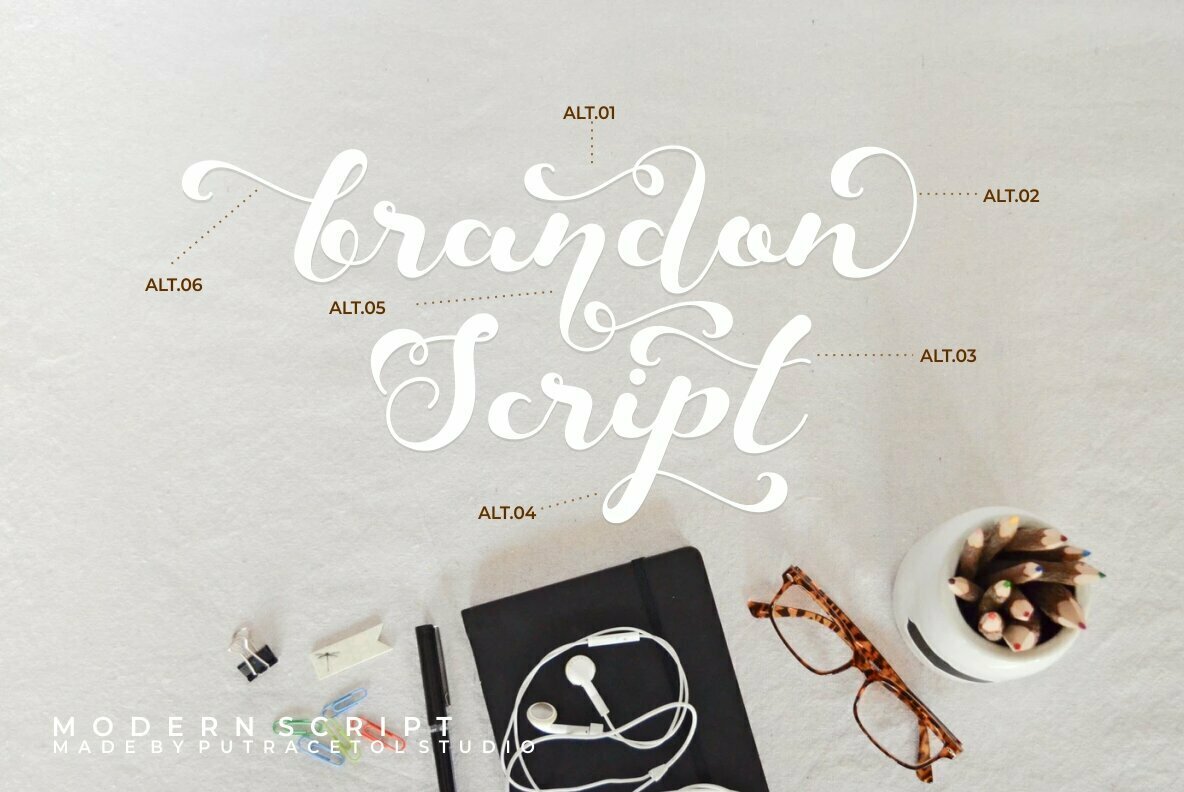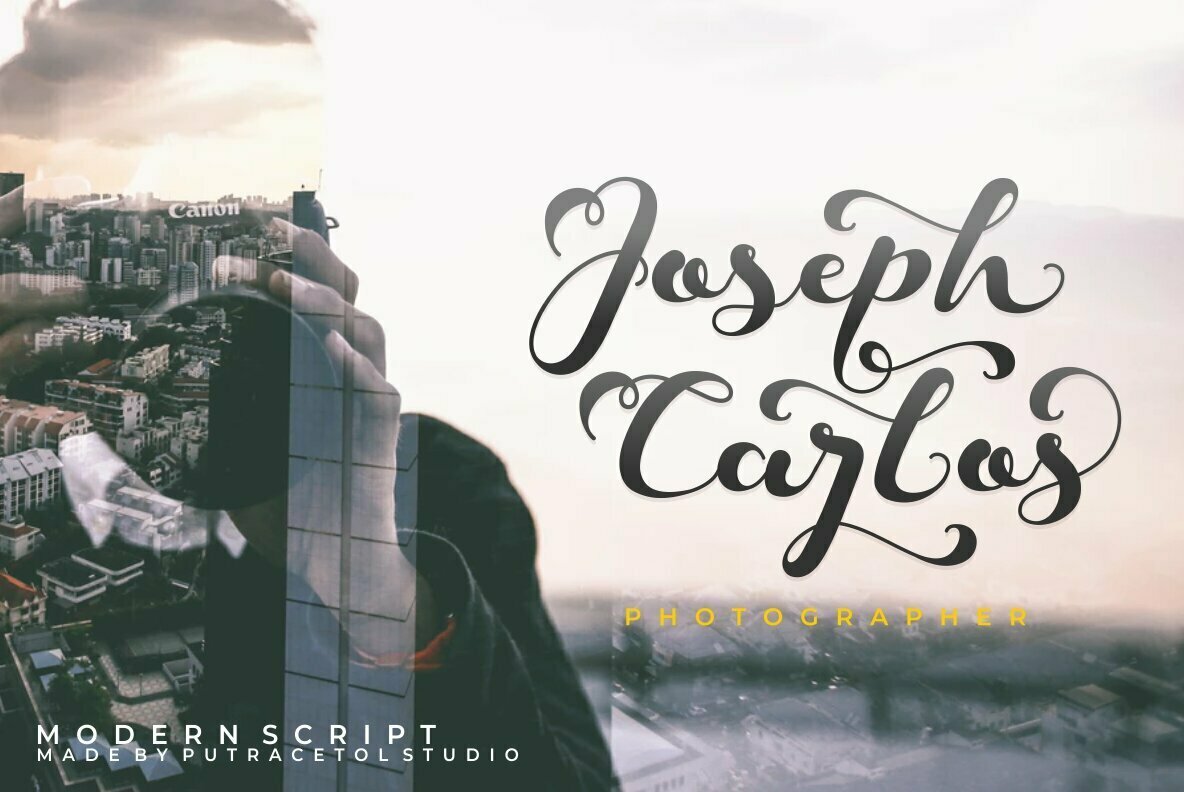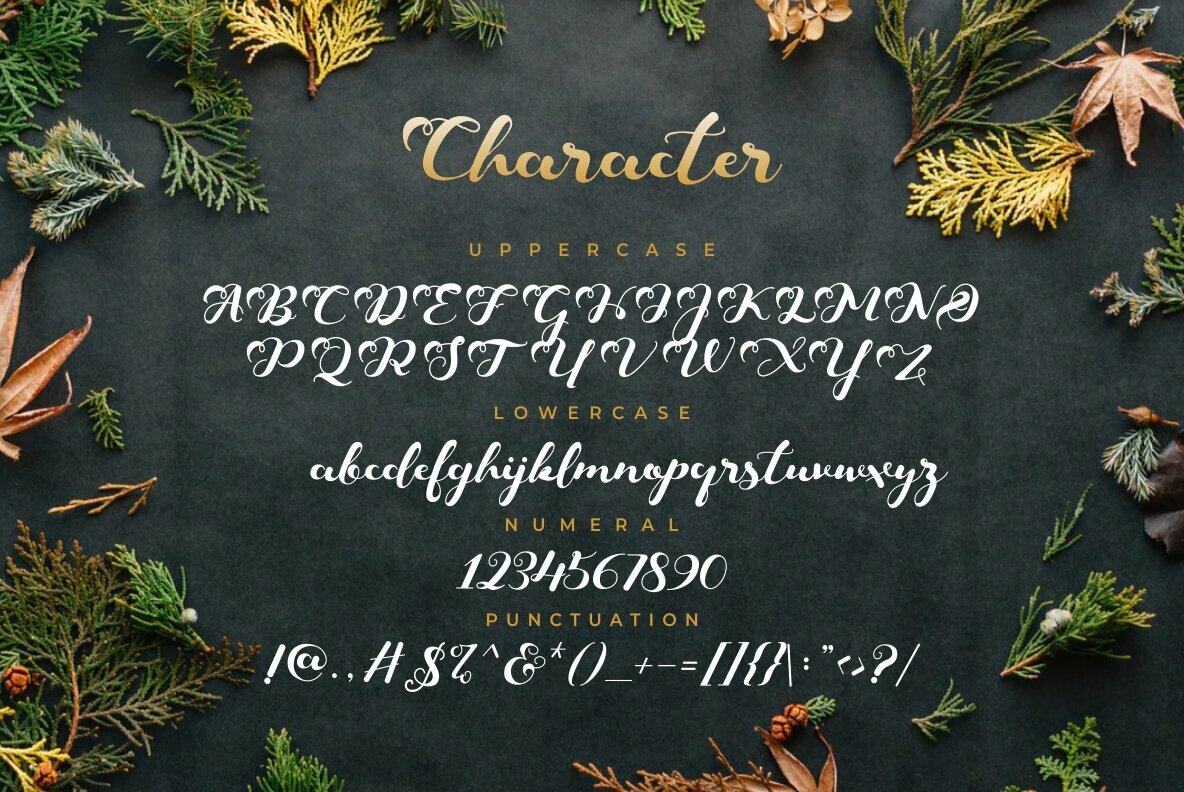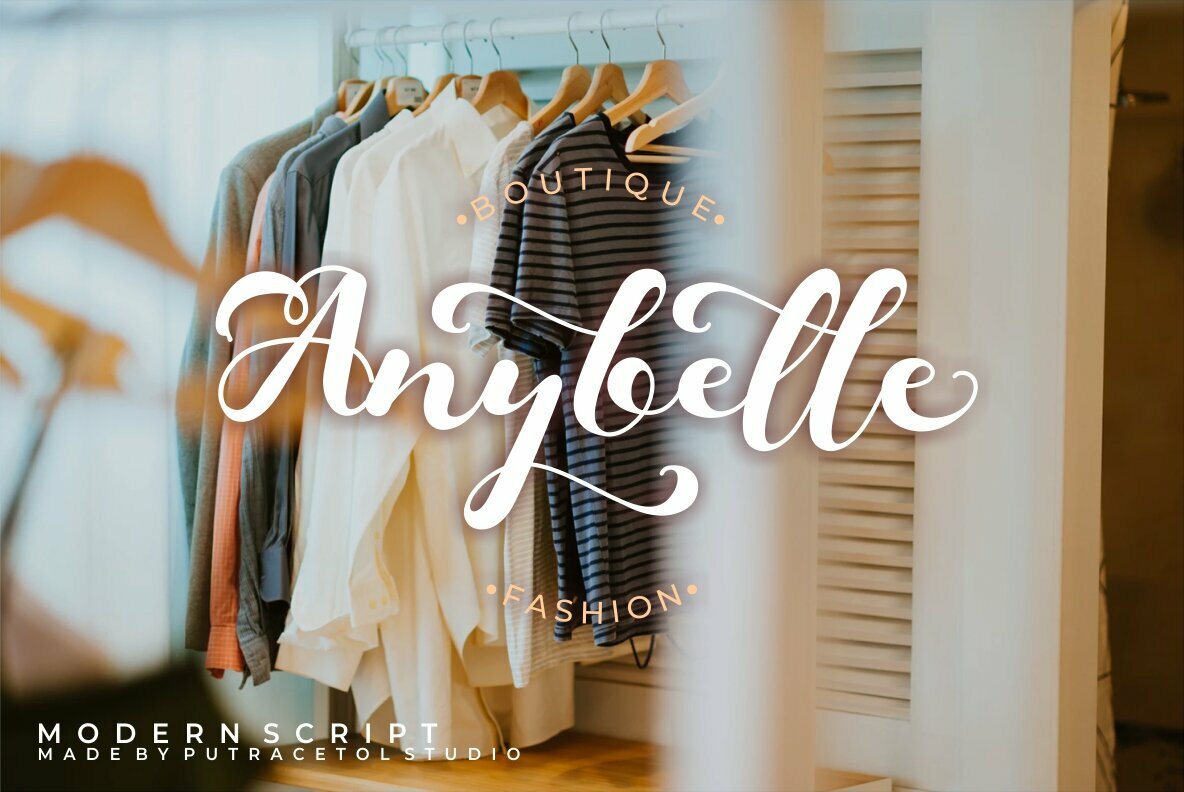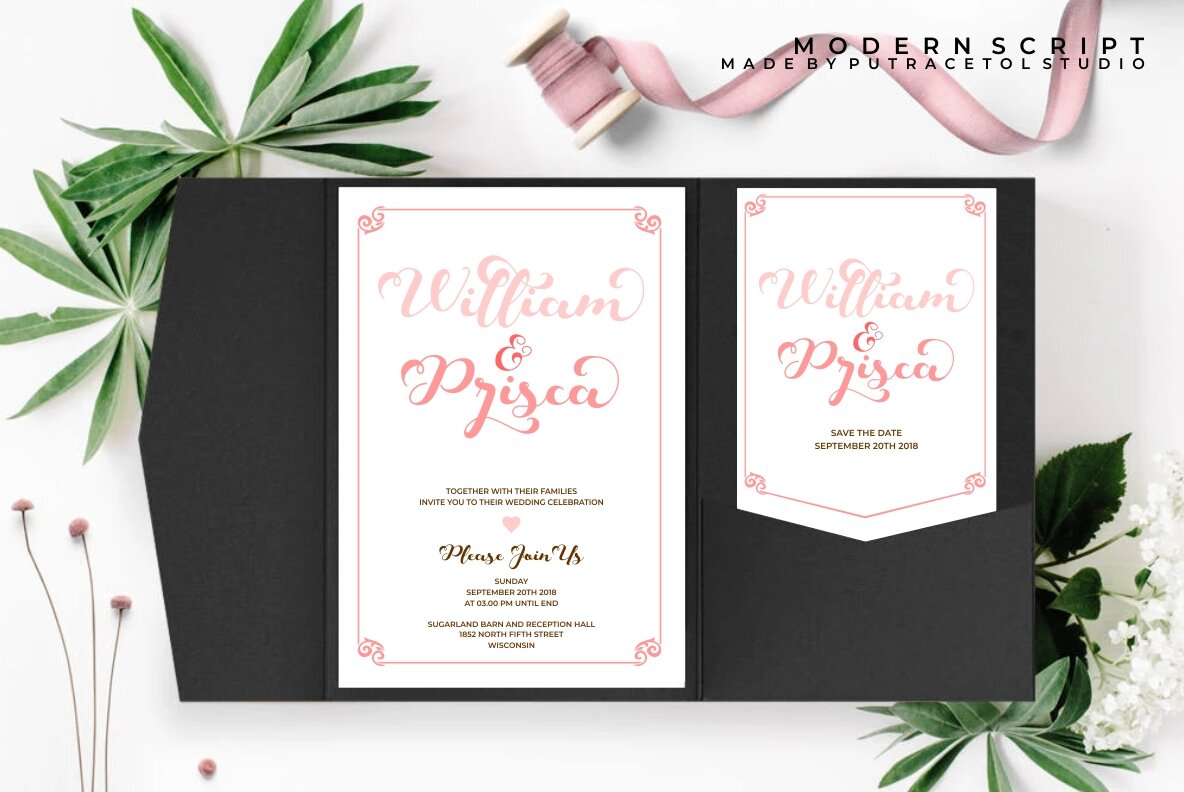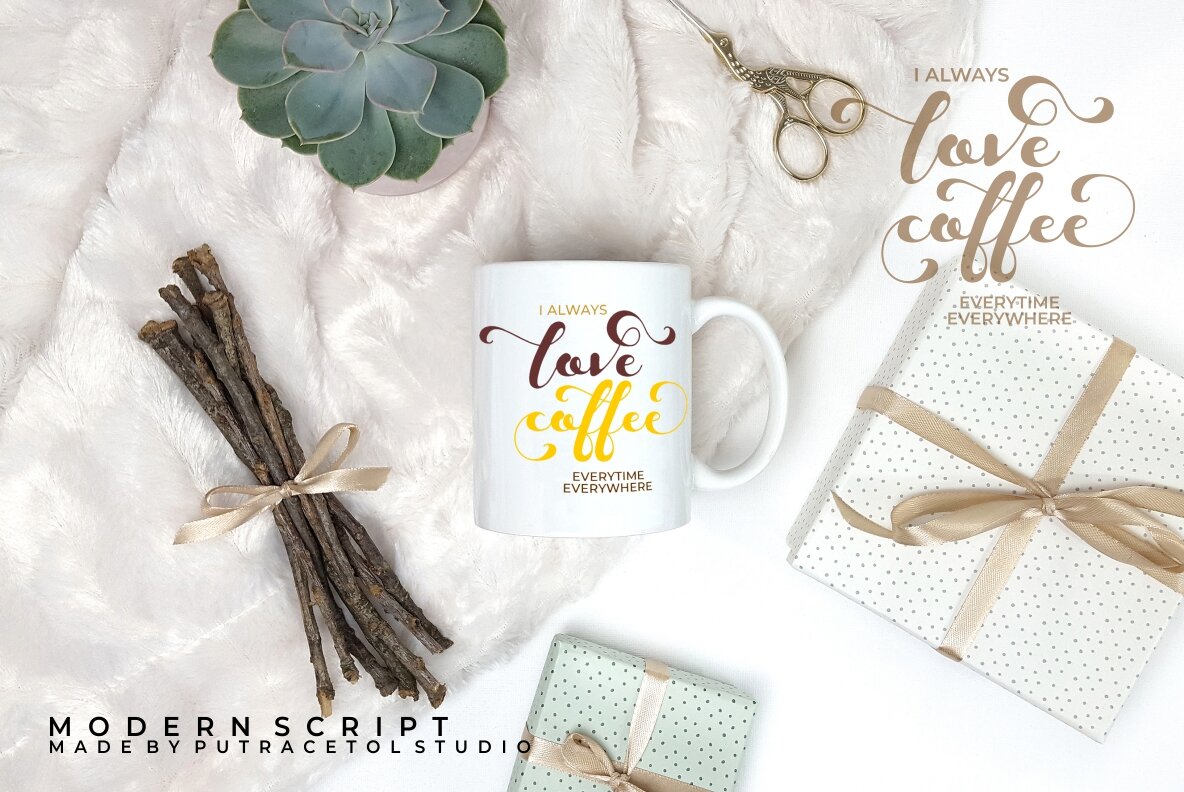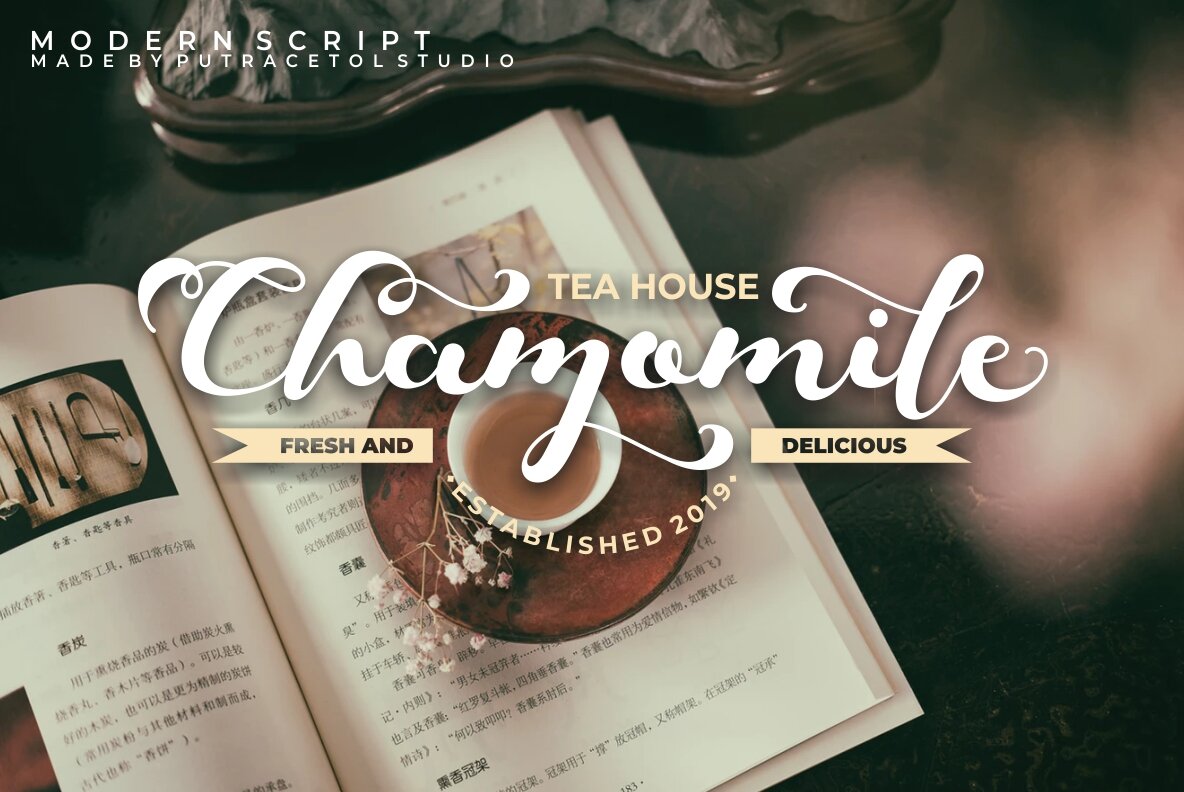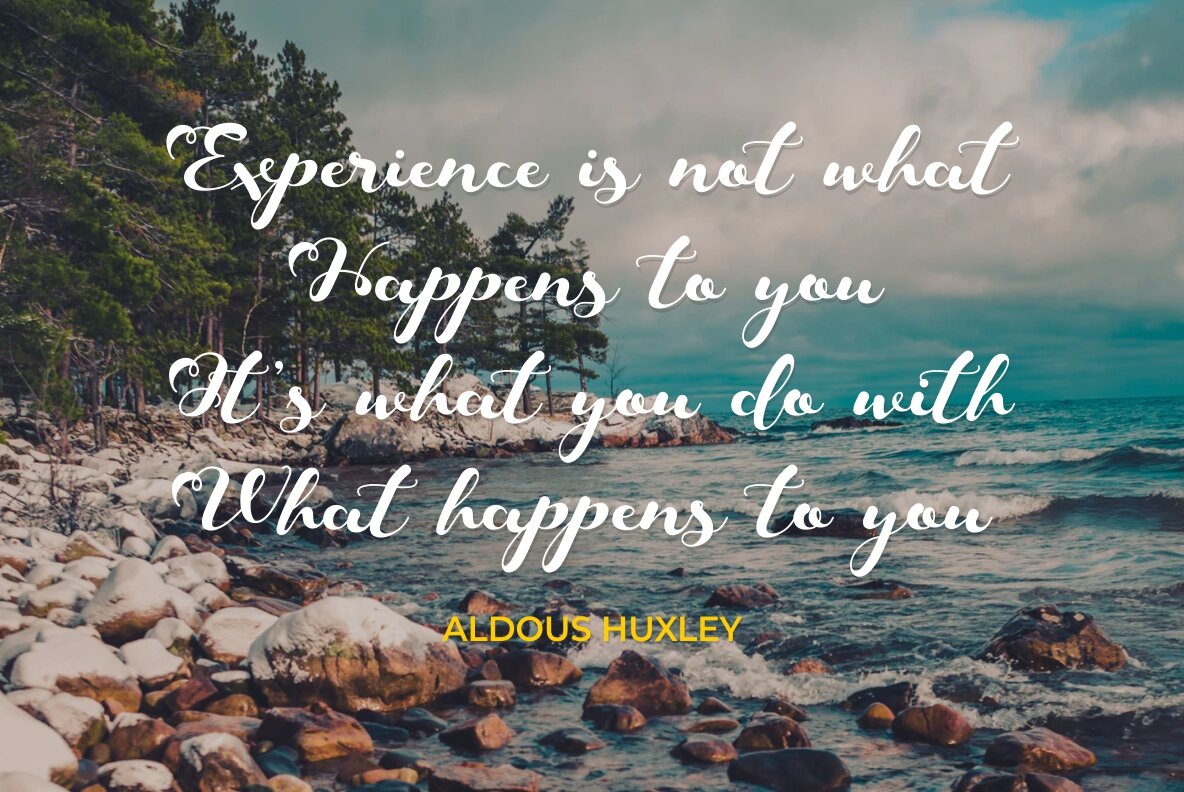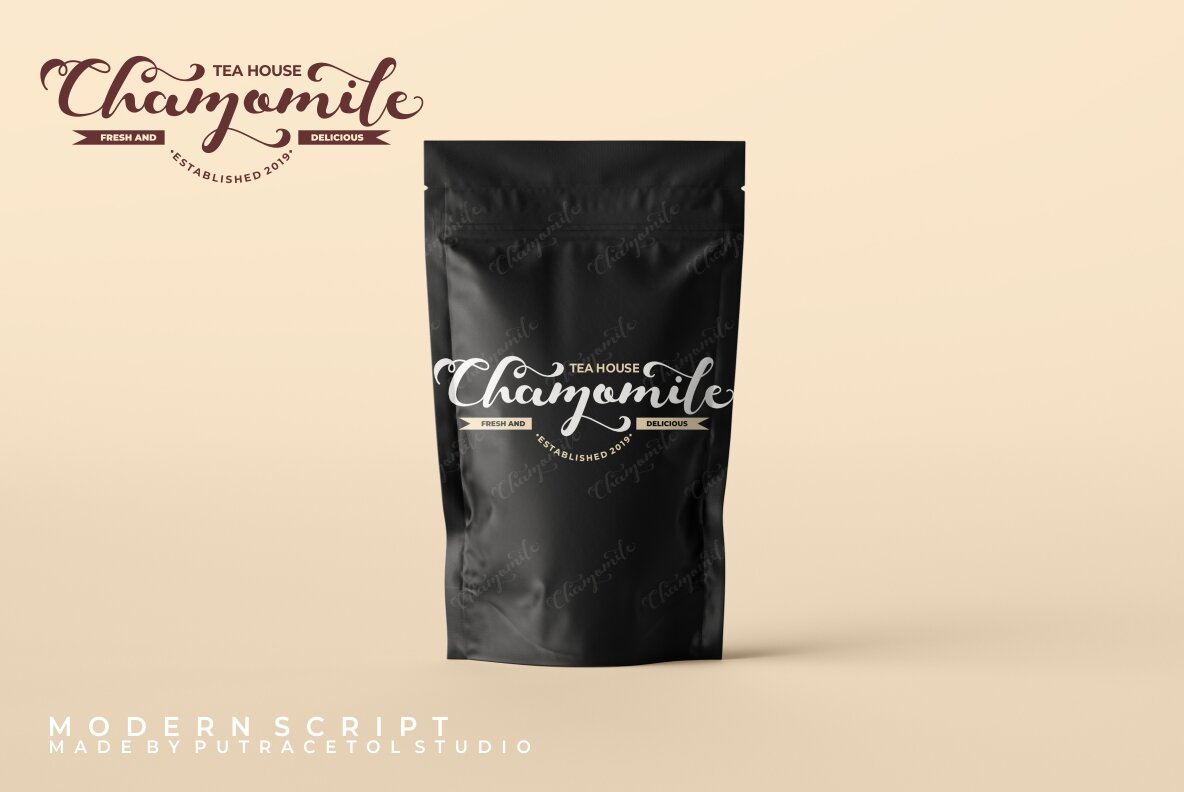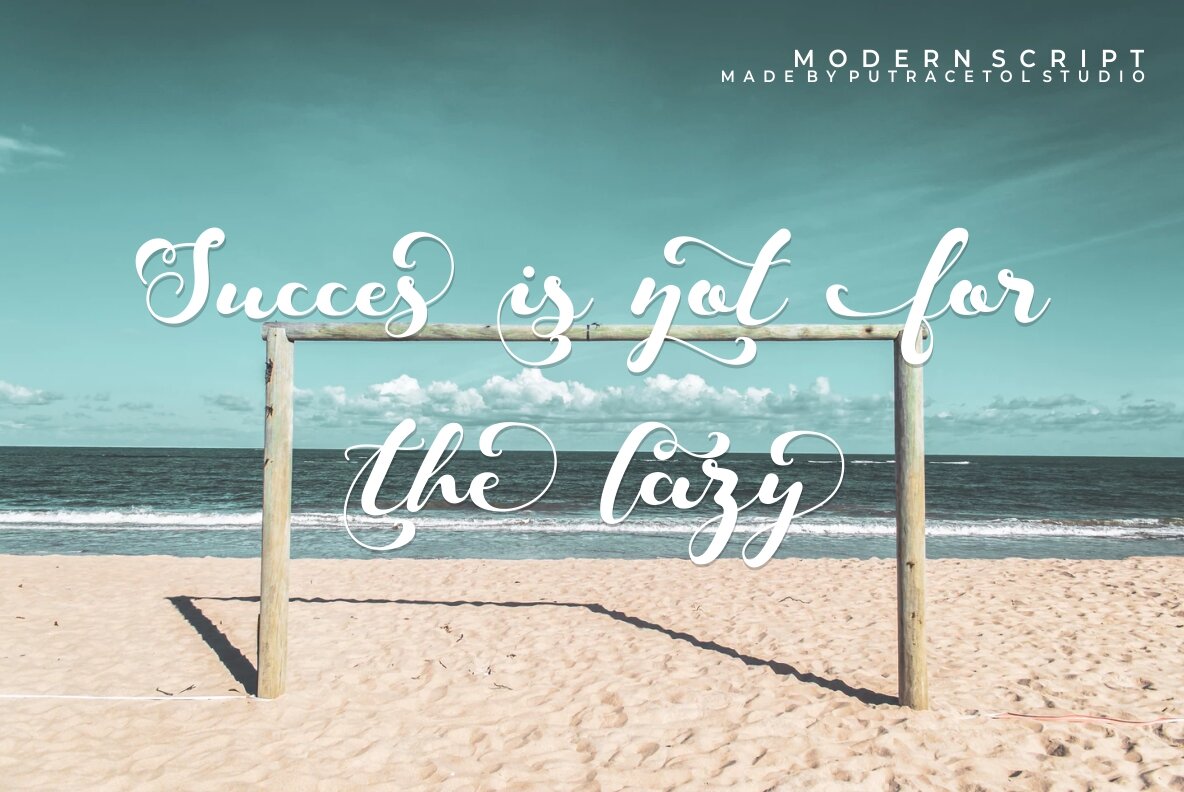
Keshia Font
Keshia
Delight in the elegance of Keshia, a playful script font designed to infuse creativity into your projects. With a rich variety of alternate characters, Keshia offers distinctive flourishes that beautifully complement any design. Ideal for diverse applications, it brings sophistication to logotypes, lettering compositions, and high-end invitations. Its unique craftsmanship renders the font suitable for fashion projects, book cover designs, magazine typography, and more. Keshia is furnished with OpenType features, which include numerous alternative glyphs, broadening your creative horizons. For seamless access to these features, software like Adobe Illustrator CS, Adobe Photoshop CC, Adobe InDesign, or Corel Draw is recommended. This font also provides multilingual support, adding to its versatility. Features:Keshia: Playful Script Font With Unique Flourishes